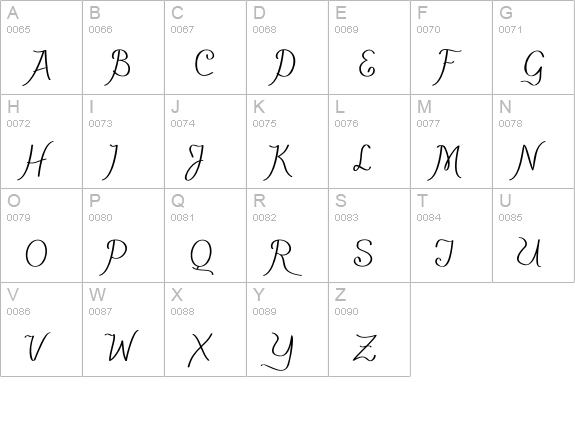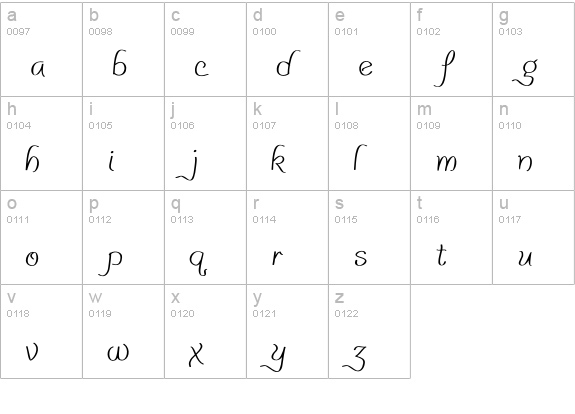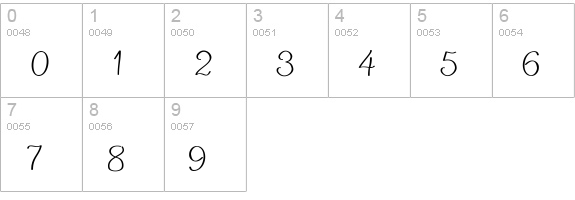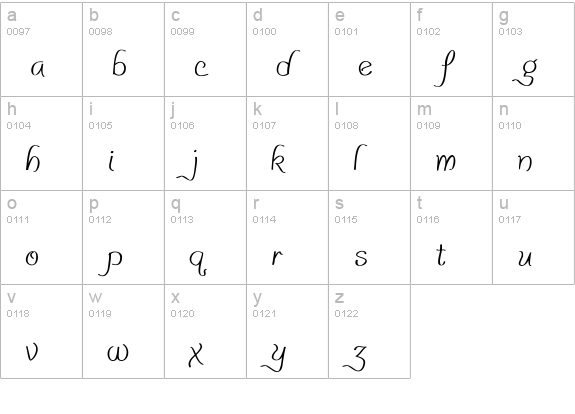
Sindbad Font Details
Introducing Sindbad font, a captivating typeface that effortlessly combines elegance with an adventurous spirit. Designed for those who crave a touch of mystique and a hint of wanderlust in their creative endeavors, Sindbad font is a true gem in the world of typography. With its fluid strokes and delicate curves, this font exudes a sense of effortless sophistication. Each letter is meticulously crafted to reflect the rich heritage of ancient calligraphy, giving it a timeless appeal that will elevate any design project to new heights. Sindbad font is versatile and adaptable, making it perfect for a wide range of applications. Whether you're designing a logo, creating a stunning poster, or even crafting a captivating website, this font will effortlessly bring your vision to life. One of the most remarkable aspects of Sindbad font is that it is freely available to download at FontsMarket.com. We believe that creativity should be accessible to all, and that's why we've made this extraordinary font available to everyone, at no cost. Now, you can unleash your imagination and bring your designs to life without any limitations. Embrace the spirit of adventure and let Sindbad font be your guide on a journey to design excellence. Download it today from FontsMarket.com and unlock a world of limitless possibilities. Whether you're a seasoned designer or just starting out, Sindbad font will inspire and empower you to create designs that truly stand out. So, go ahead and embark on a creative voyage like no other with Sindbad font. Let its mesmerizing beauty and free availability ignite your passion for design and make every project a masterpiece. Download Sindbad font today and set sail towards a world of endless creativity.